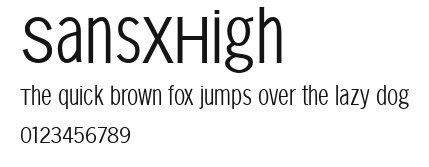
About SansXHigh.ttf
SansXHigh.ttf is a modern, elegant sans-serif font designed for ultimate readability and visual harmony. Perfect for branding, headlines, web design, and print materials.